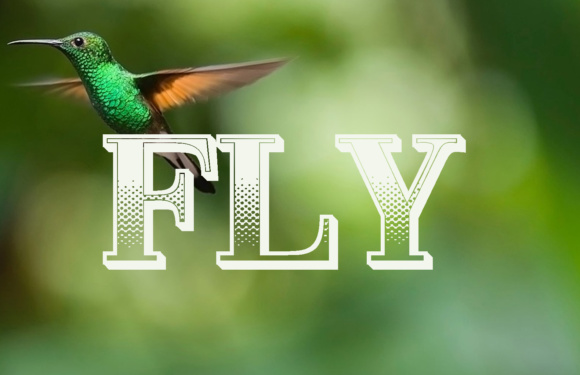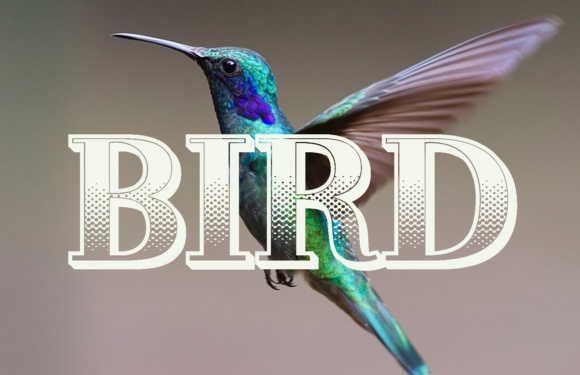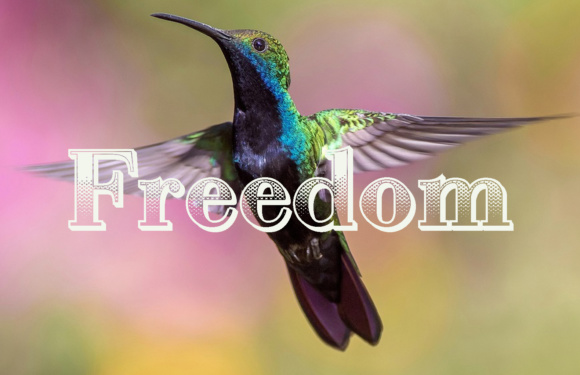
Introducing Gradientico Font: Elevate Your Designs with a Retro Twist
Are you tired of using the same old fonts in your designs? Look no further! Gradientico Font is here to add a retro touch to your creations. This fantastic font comes in two variants: Regular and Italic, making it perfect for a wide range of design projects, from banners and posters to headlines and more.
What is Gradientico Font?
Gradientico Font is a carefully crafted retro font that is designed to bring a unique and stylish touch to your designs. Its classic look and feel make it an excellent choice for designers and crafters who want to add a vintage flair to their work. Whether you’re creating a bold banner, an eye-catching poster, or a striking headline, Gradientico Font is the perfect choice.
Key Features of Gradientico Font
- 2 Variants: Gradientico Font comes in two variants: Regular and Italic, giving you flexibility and options for your designs.
- Retro Style: The font boasts a classic, retro look that’s sure to grab attention and add a touch of nostalgia to your designs.
- Versatile: Use Gradientico Font for a wide range of design projects, including banners, posters, headlines, and more.
Why Choose Gradientico Font?
With so many fonts available, why choose Gradientico Font? Here are just a few reasons:
- Unique Style: Gradientico Font offers a unique and distinctive style that’s sure to set your designs apart from the crowd.
- High-Quality: The font is carefully crafted to ensure high-quality and crisp text, even at large sizes.
- Time-Saving: With Gradientico Font, you can quickly and easily add a retro touch to your designs, saving you time and effort.
Design Ideas Using Gradientico Font
Gradientico Font is incredibly versatile, and can be used in a wide range of design projects. Here are a few ideas to get you started:
- Banners: Use Gradientico Font to create eye-catching banners for events, promotions, or sales.
- Posters: Add a retro touch to your posters with Gradientico Font, perfect for advertising, promoting a cause, or showcasing your work.
- Headlines: Use Gradientico Font to create striking headlines for your blog posts, articles, or website.
- Social Media Graphics: Add a touch of personality to your social media graphics with Gradientico Font.
Tips for Using Gradientico Font
Here are a few tips for getting the most out of Gradientico Font:
- Experiment with Colors: Gradientico Font looks great in a range of colors, so don’t be afraid to experiment and find the perfect combination for your design.
- Play with Sizes: The font is clear and legible at a range of sizes, so try using it in different sizes to add visual interest to your design.
- Combine with Other Fonts: Gradientico Font pairs well with a range of other fonts, so try combining it with other fonts to create a unique look.
Gradientico Font is a fantastic addition to any designer’s toolkit. With its retro style, versatility, and ease of use, it’s the perfect choice for a wide range of design projects. Whether you’re a seasoned designer or just starting out, Gradientico Font is sure to elevate your designs and add a touch of personality to your work.